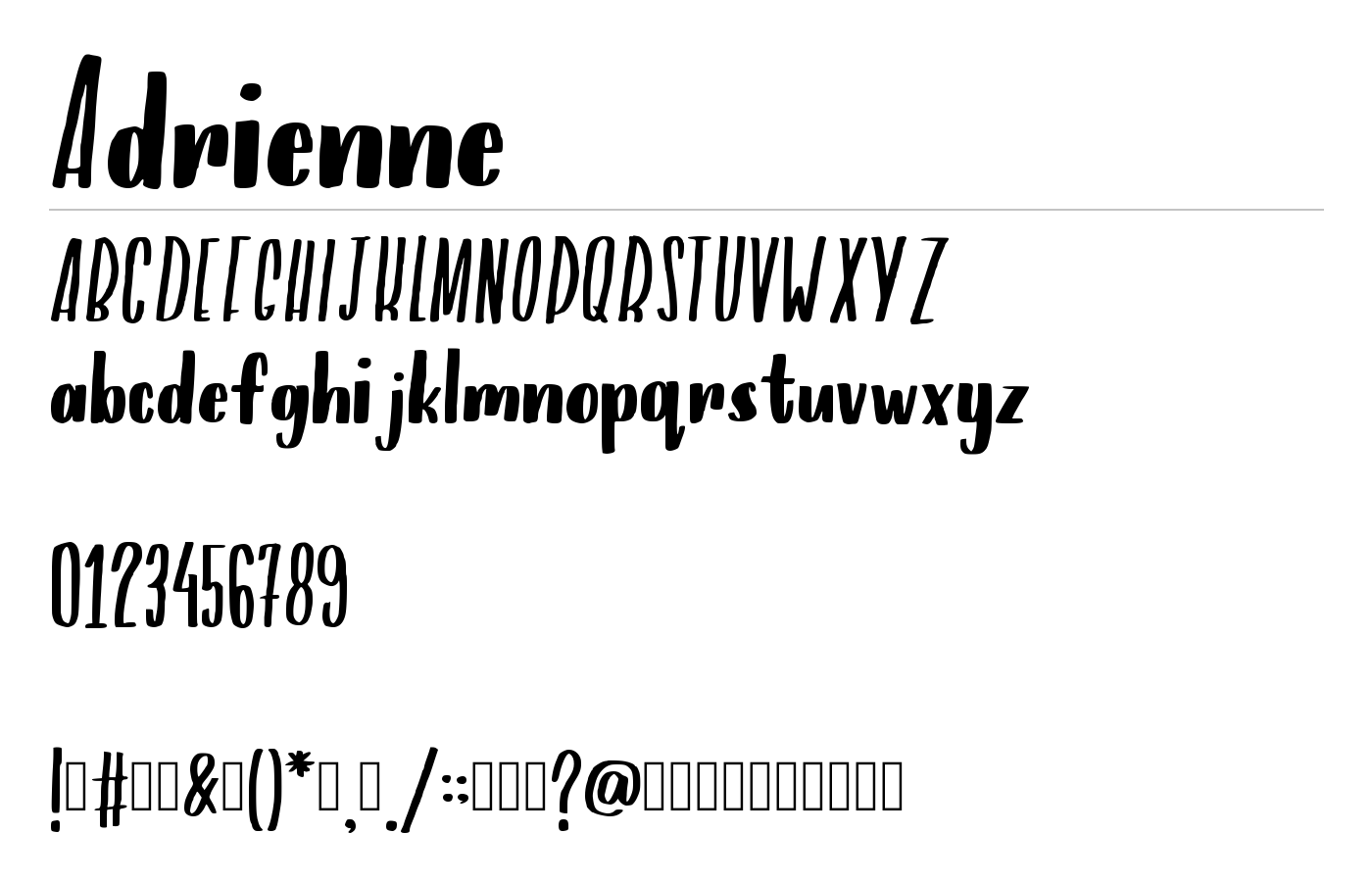
Adrienne is a lively, vintage-inspired sans serif font featuring a playful contrast between tall, narrow uppercase letters and bold, rounded lowercase forms. Its uneven strokes and quirky letter shapes give it a handcrafted, energetic feel, making it perfect for creative branding, posters, or any design aiming for a friendly yet distinctive look. This font works well in eye-catching headlines and display settings where personality and charm are key.
Adrienne Font